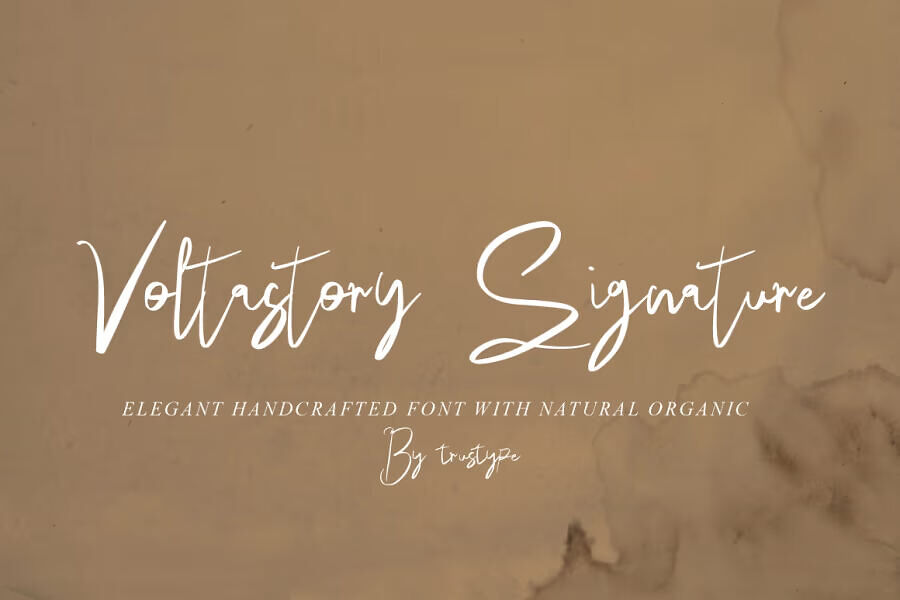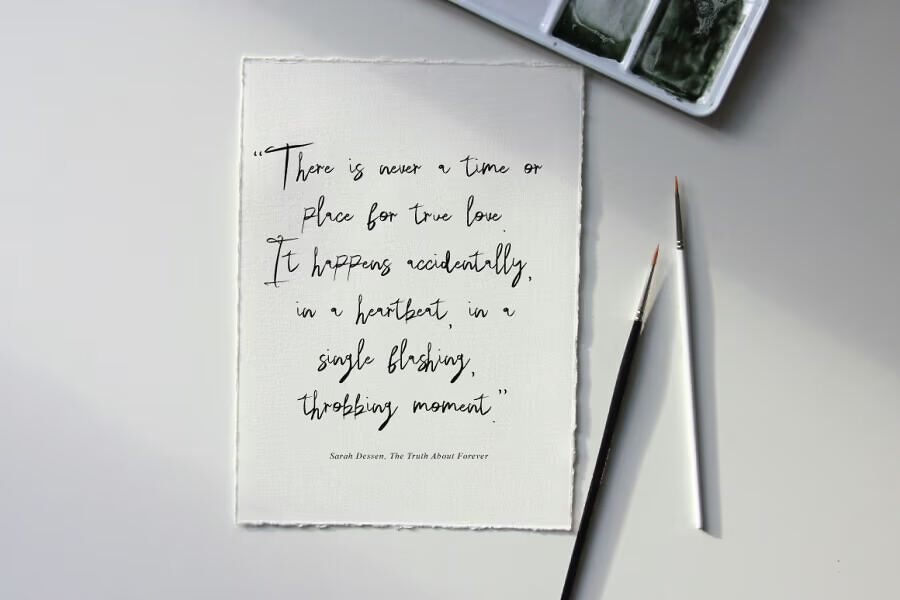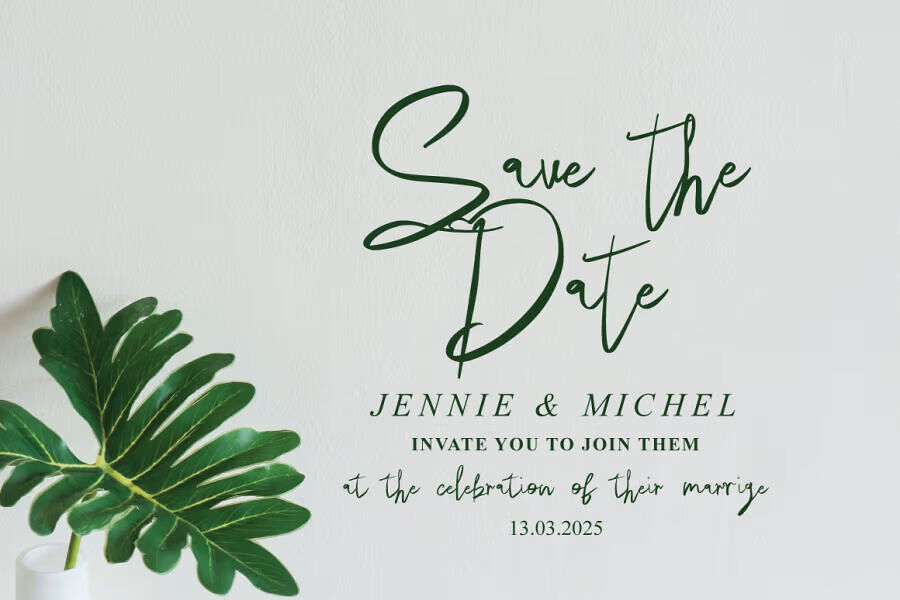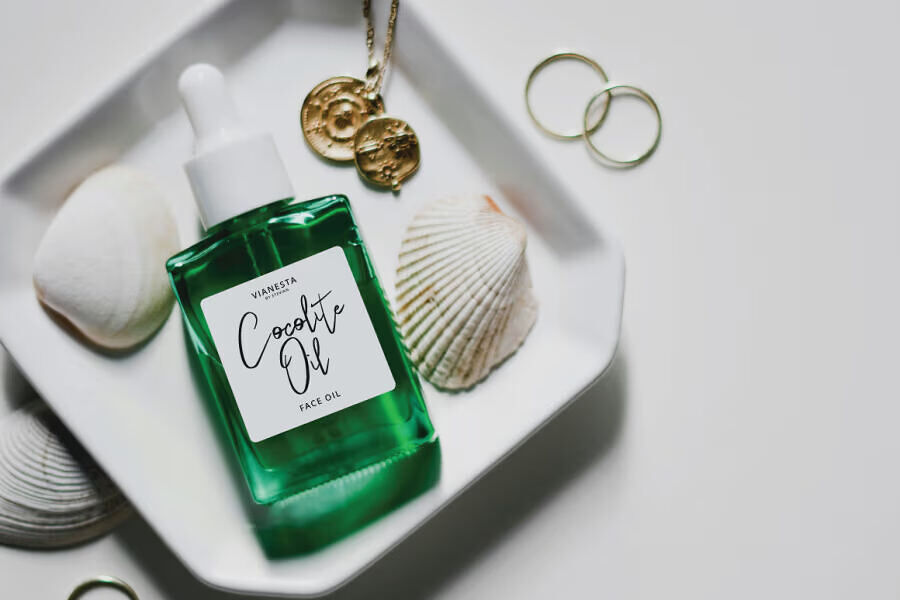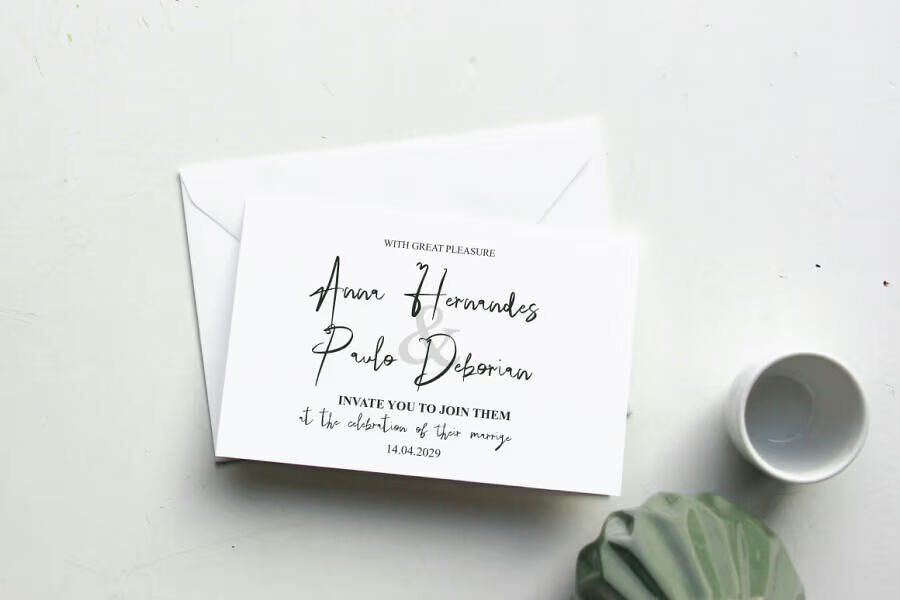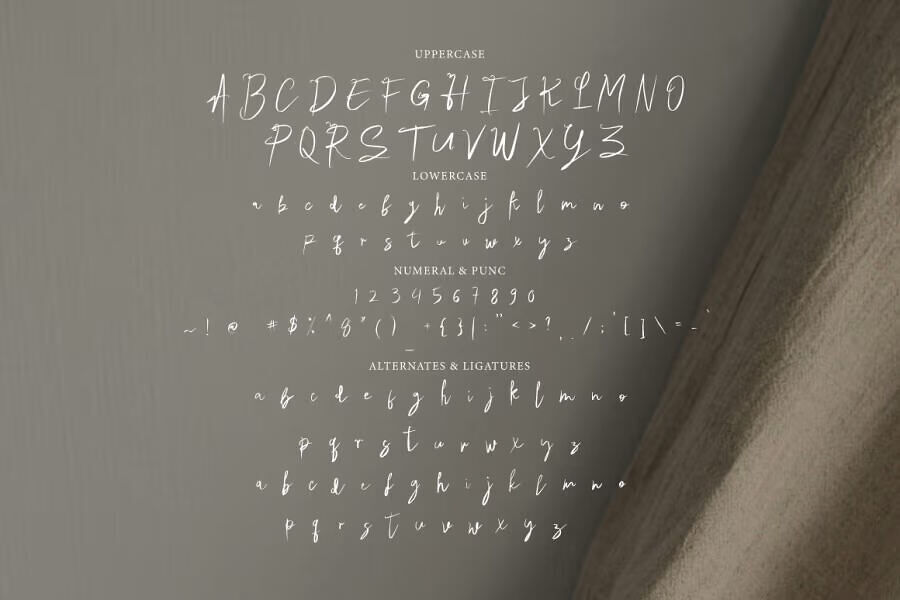
Voltastory Signature Font
Voltastory Signature with a handmade Signature style, decorative characters and a dancing baseline!
Voltastory Signature font includes 200+ glyphs. The alternative characters were divided into several Open Type features such as Swash, Stylistic Sets, Stylistic Alternates, and Ligature. The Open Type features can be accessed by using Open Type savvy programs such as Adobe Illustrator, Adobe InDesign, Adobe Photoshop Corel Draw X version, And Microsoft Word.